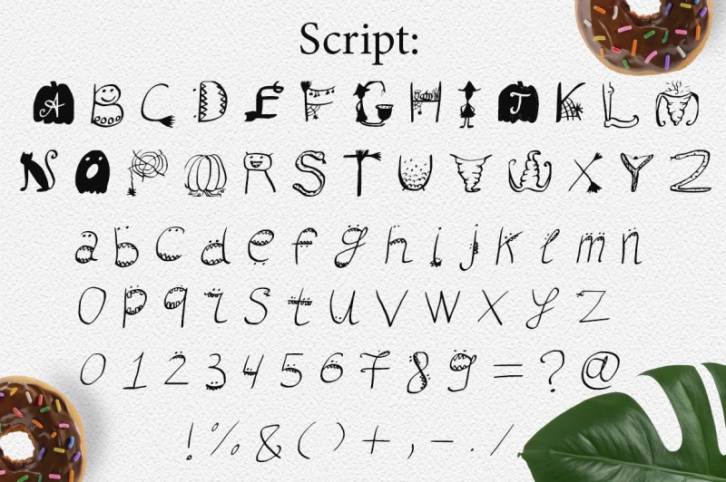
This small set is suitable for everything that is connected with the Hellen. For postcards, invitations, menus, billboards, discount cards, festive decorations, festive clothing. In the archive there are 4 gourds of gouache painted. (Each on a transparent background in PNG format, and in the general file of Photoshop). Also font in two formats.(OTF, TTF) And a vector file with all the alphabet elements in the Eps format. I wish you good holidays!)